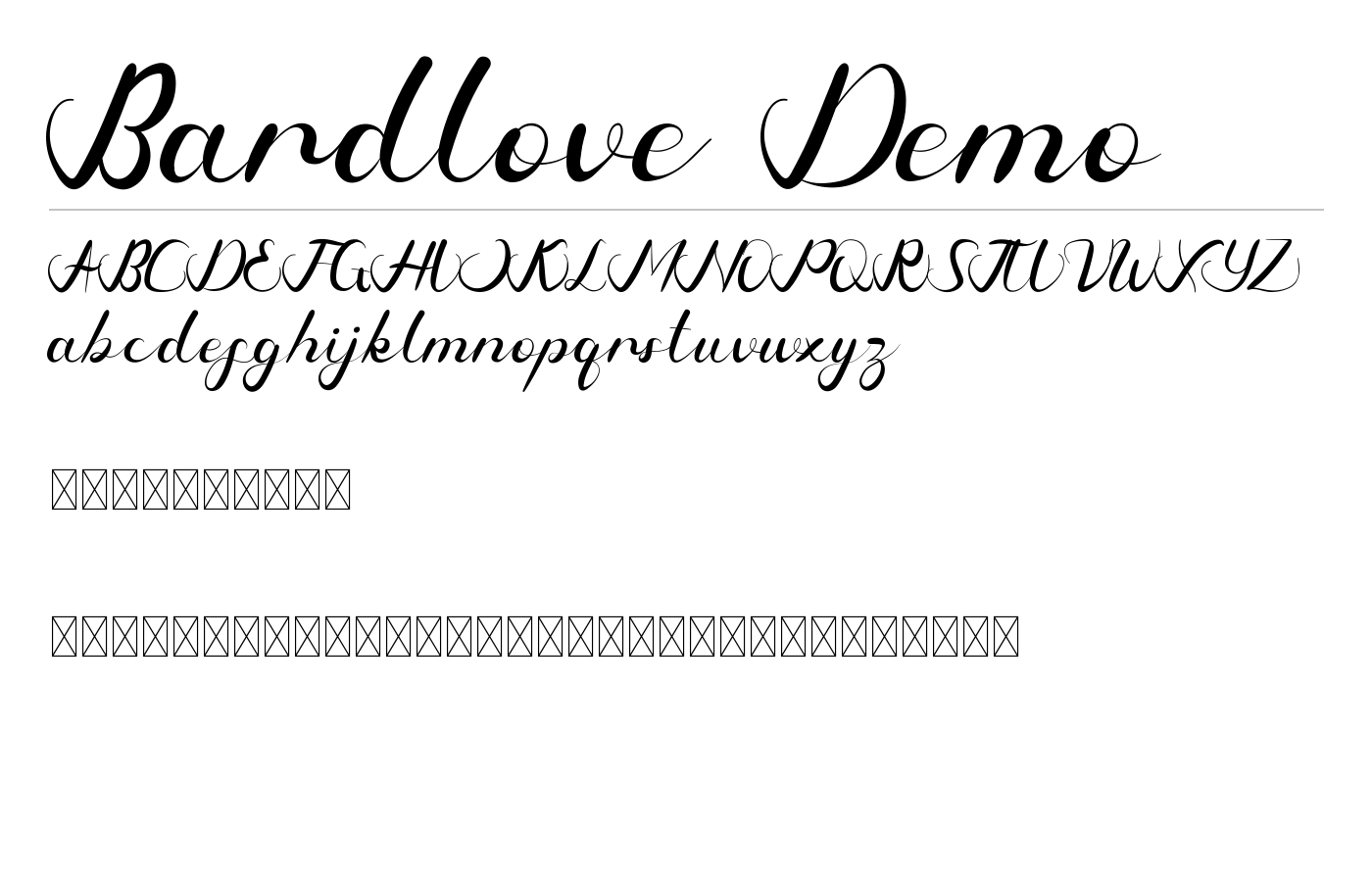
Bardlove Demo is an elegant script font with a graceful, flowing style that mimics natural handwriting with smooth, tapered strokes and delicate flourishes. Its high contrast and refined curves give it a romantic and sophisticated feel, making it perfect for wedding invitations, luxury branding, and decorative headlines where a touch of elegance is desired. This font shines in designs that require a personal, charming, and refined aesthetic.
Bardlove Demo Font
About Bardlove Demo Font